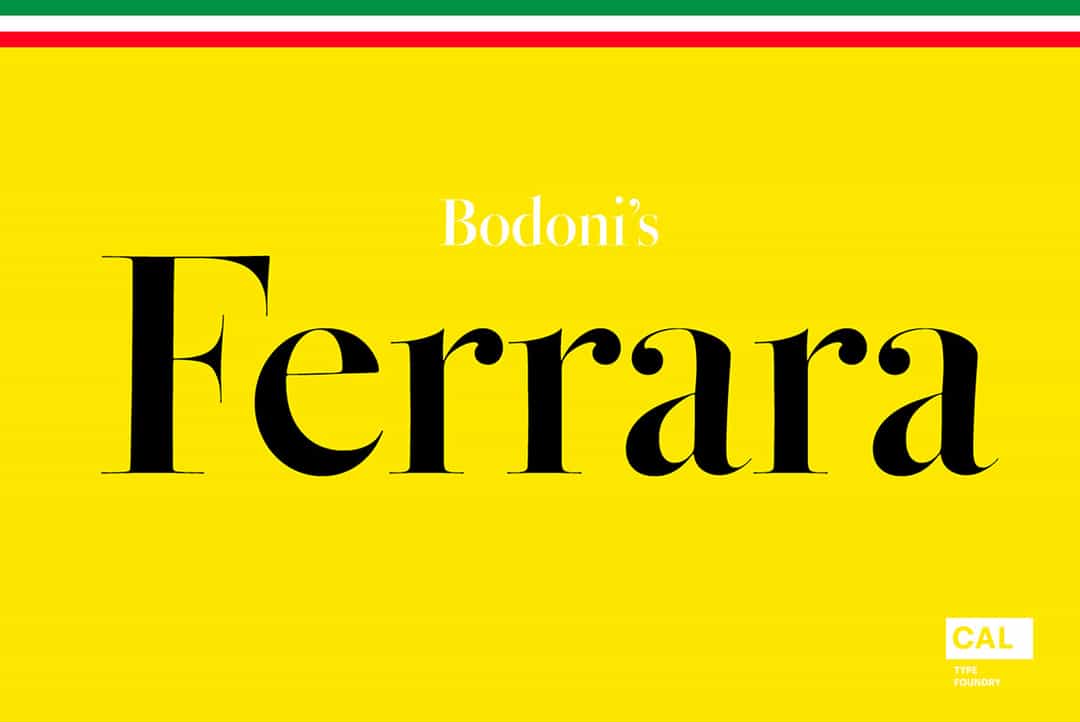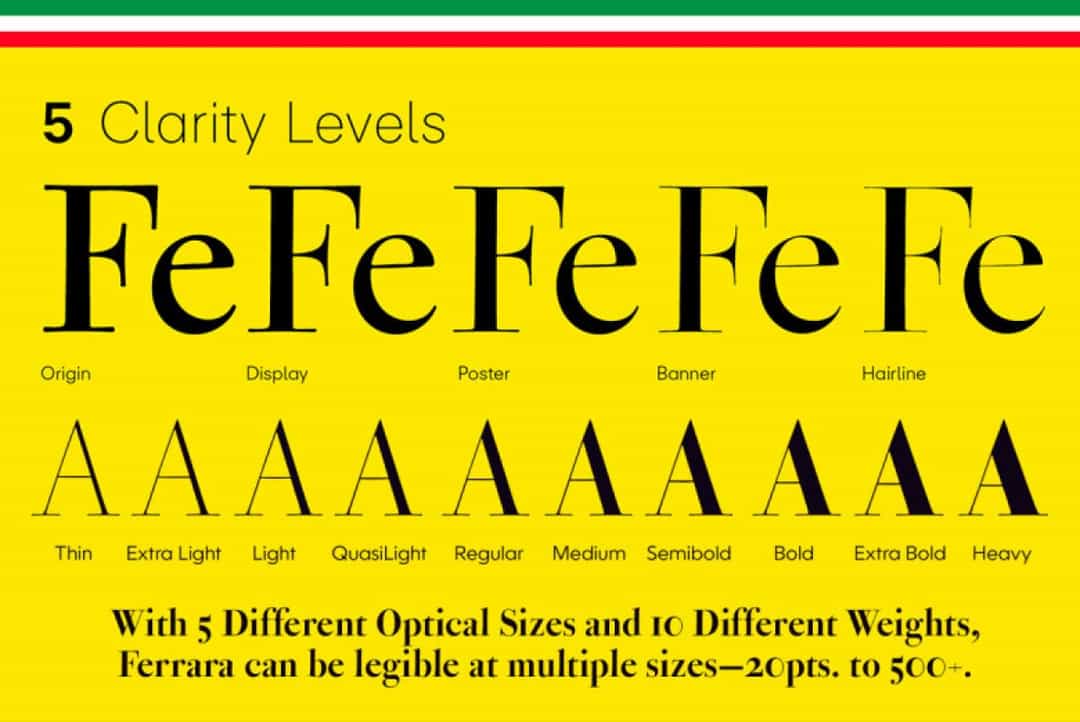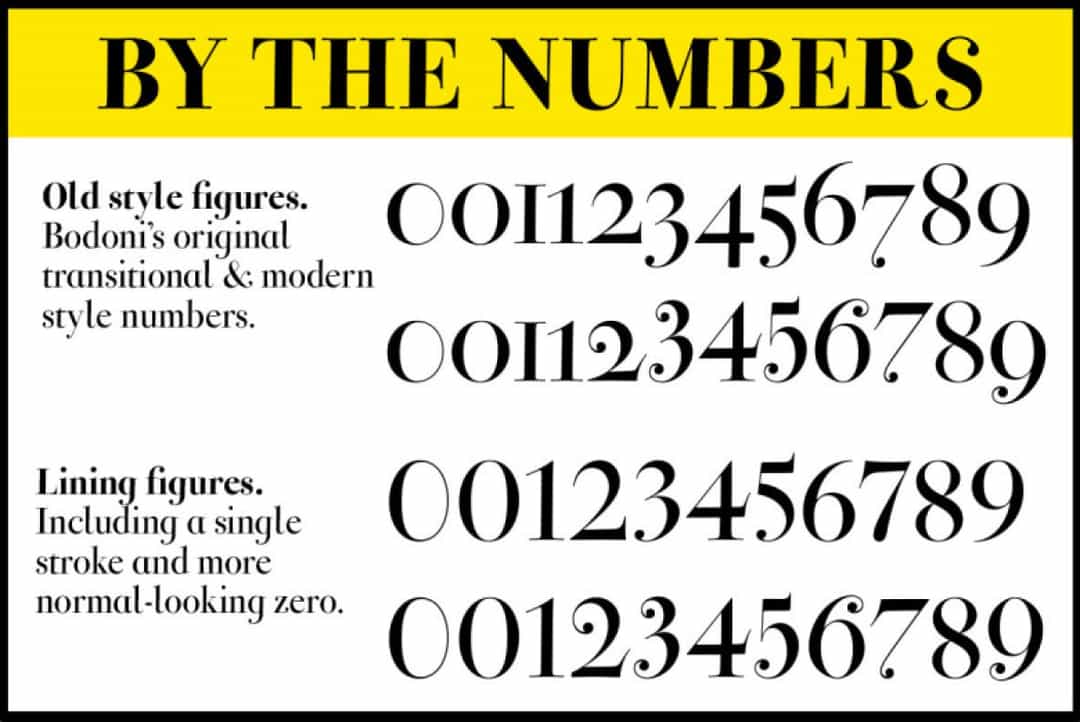
Bodoni Ferrara is an elegant, classic serif typeface family, perfect for adding a beautiful finishing touch to a wide array of crafts ranging from cards, labels, branding projects and more. Be amazed by what happens when you add this elegant typeface family into your most beloved creations and watch as the results will amaze.